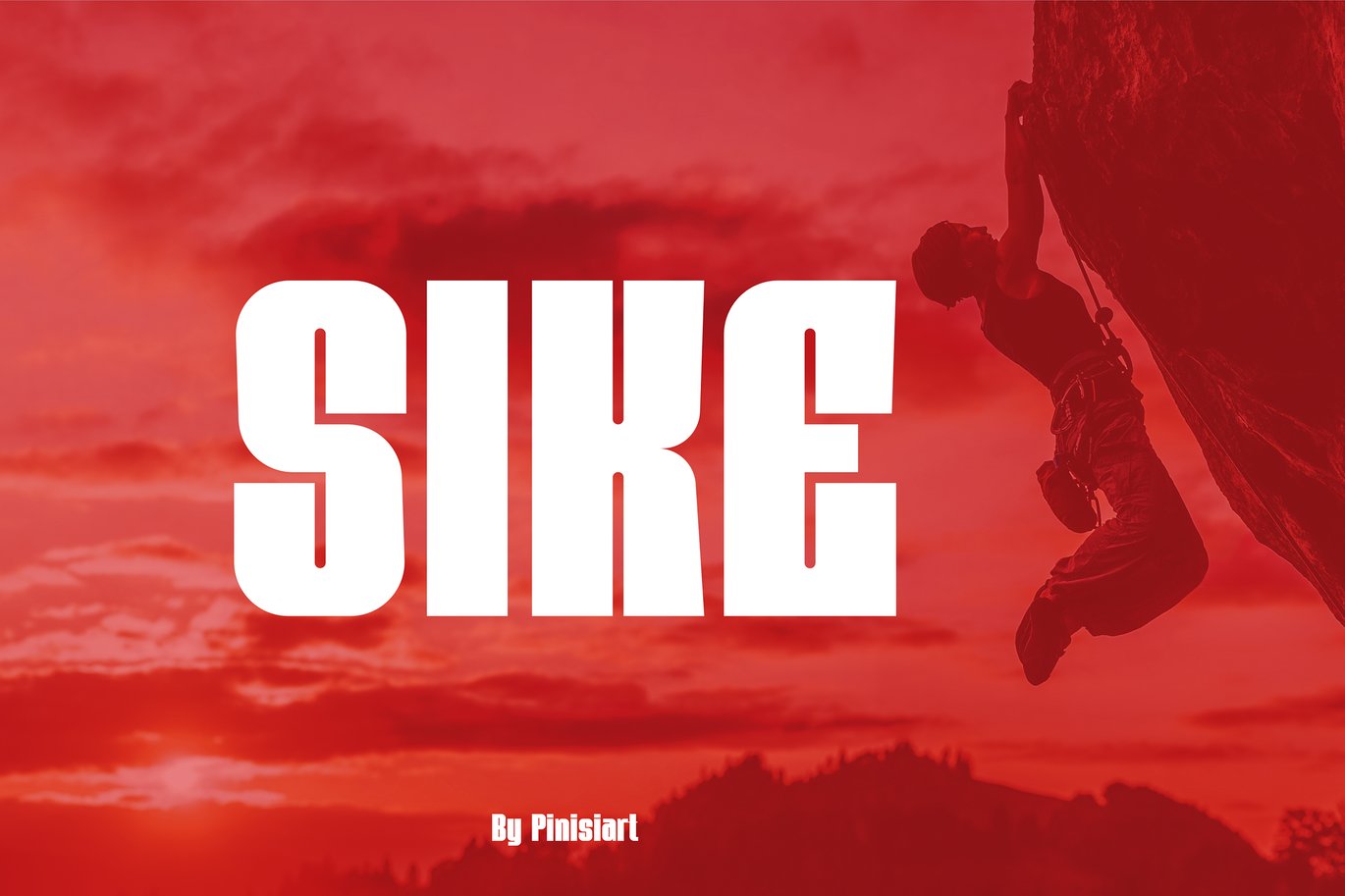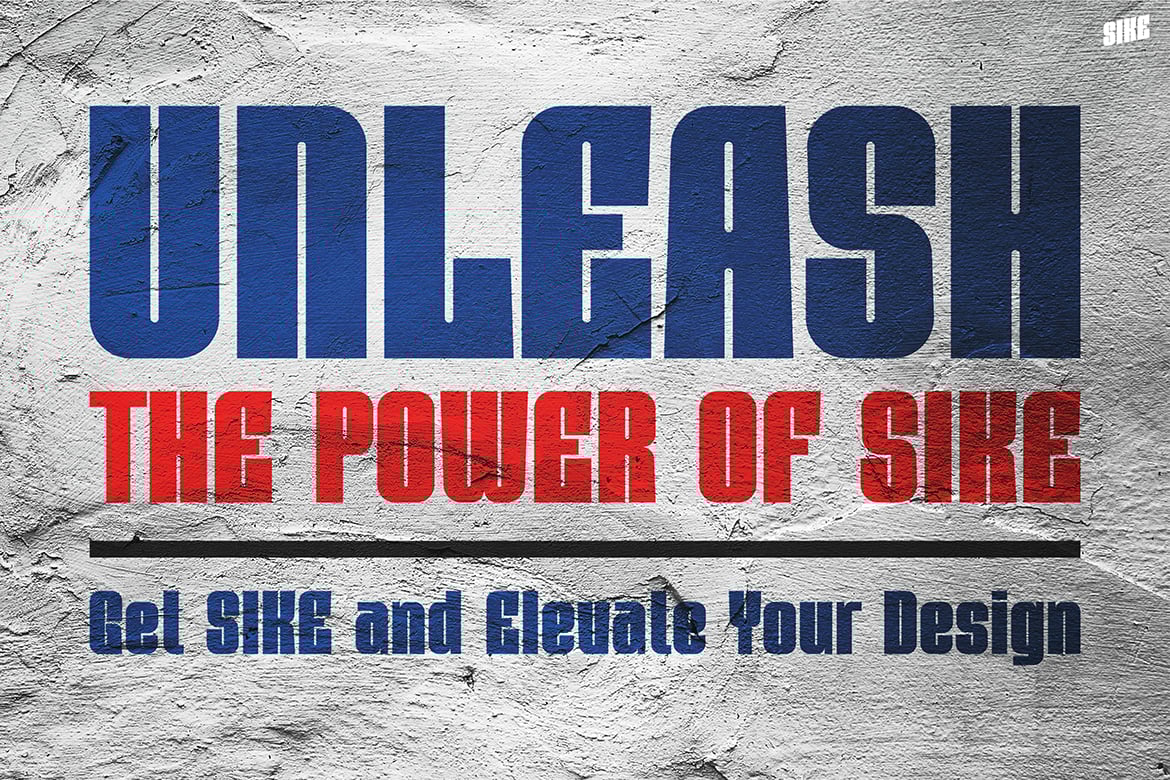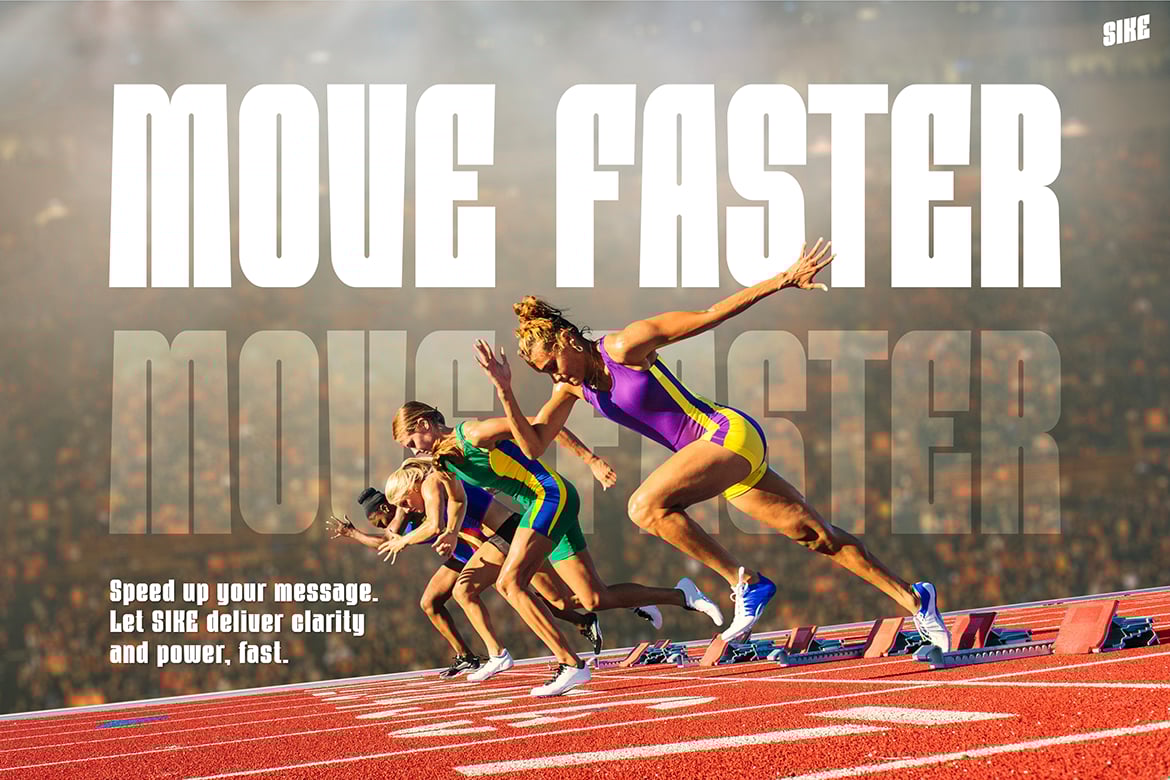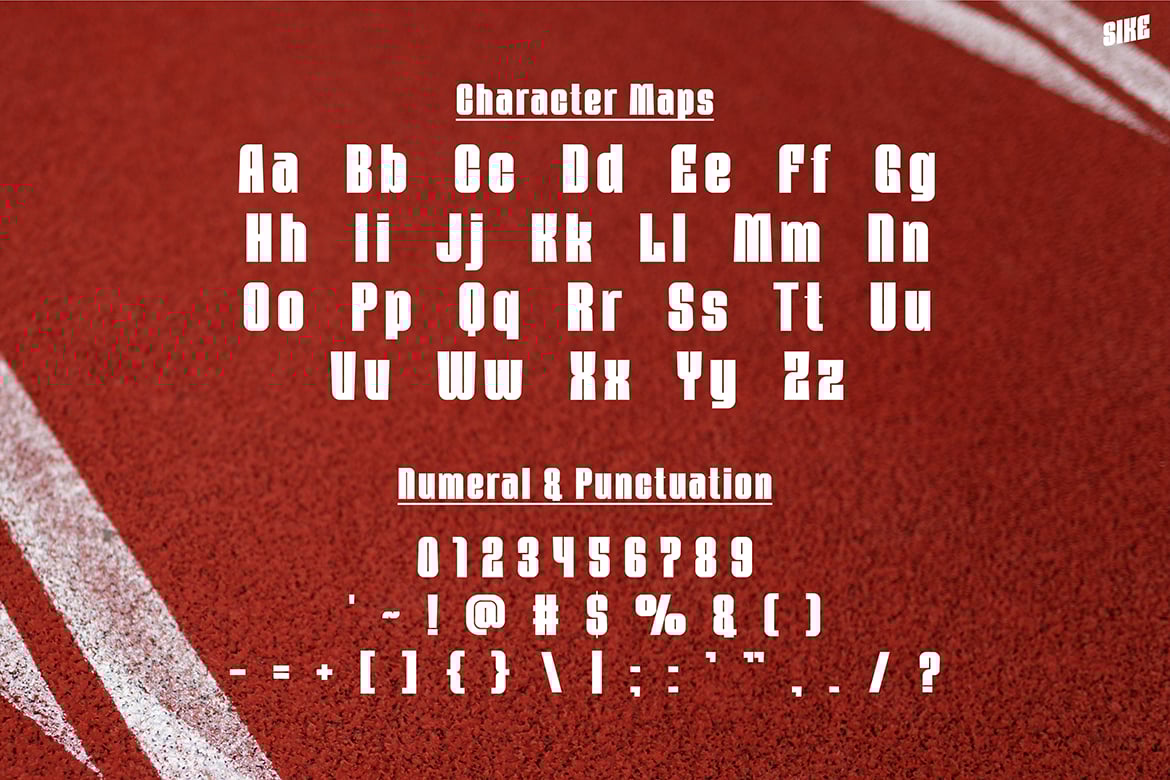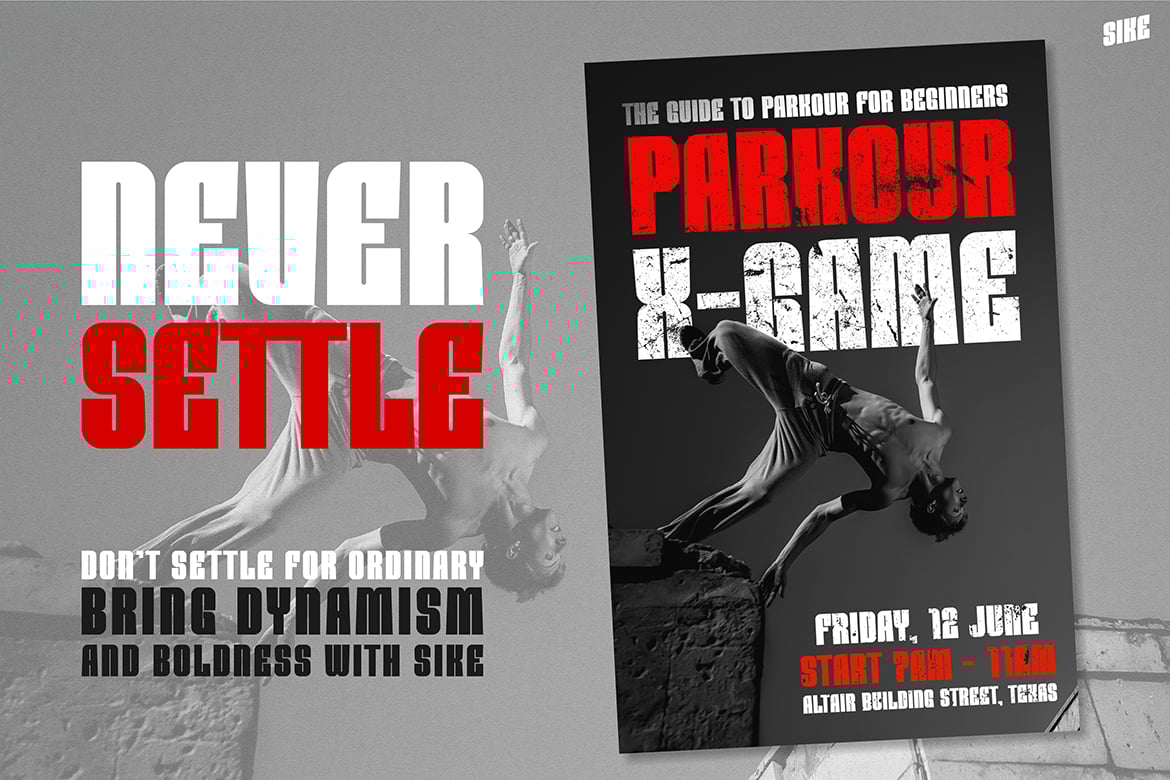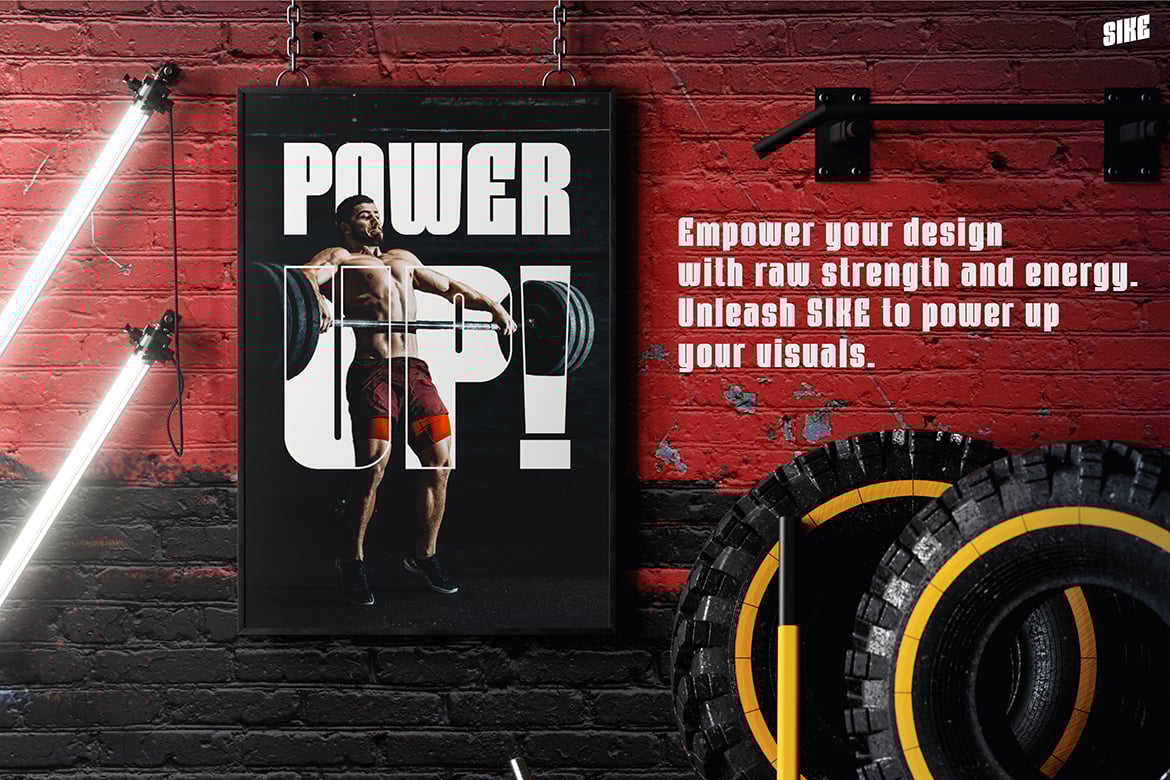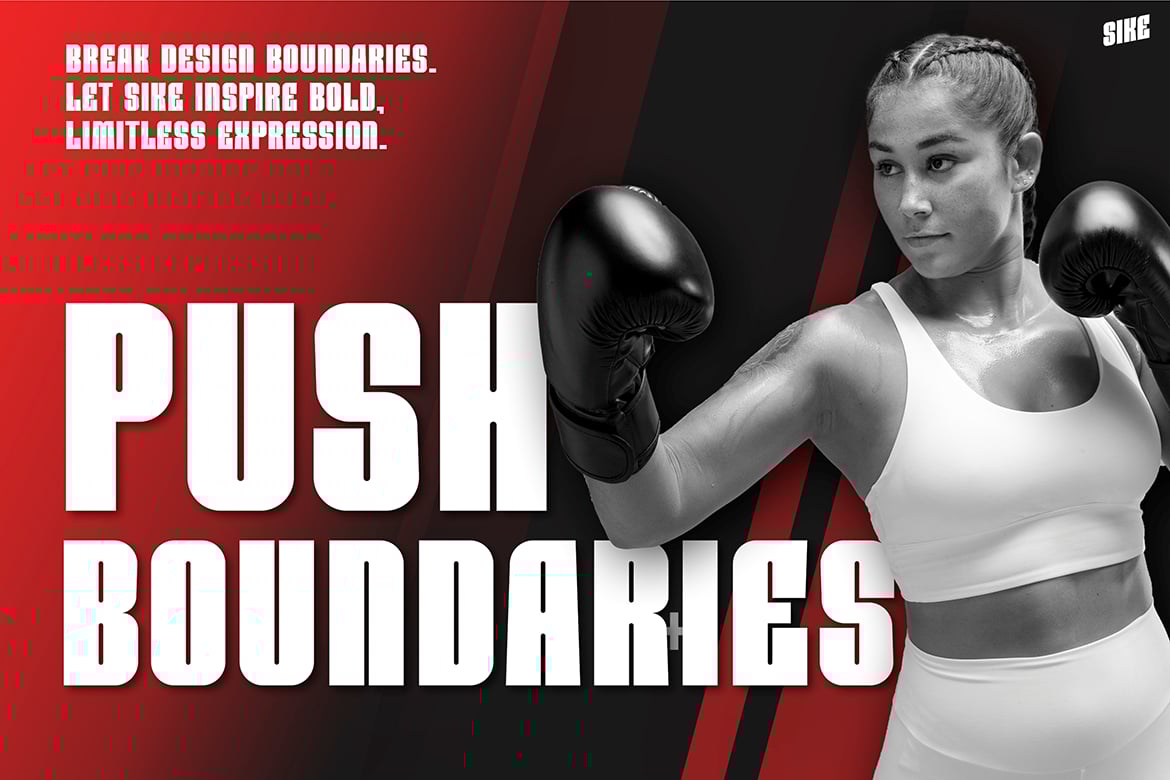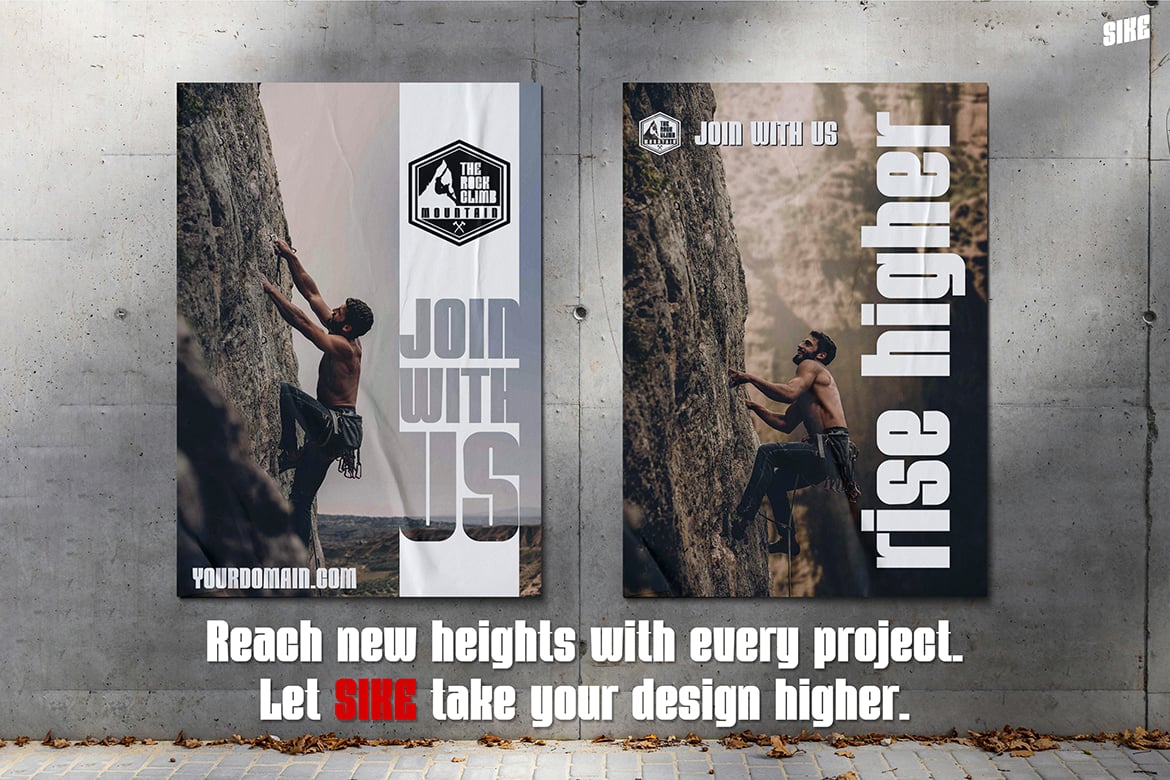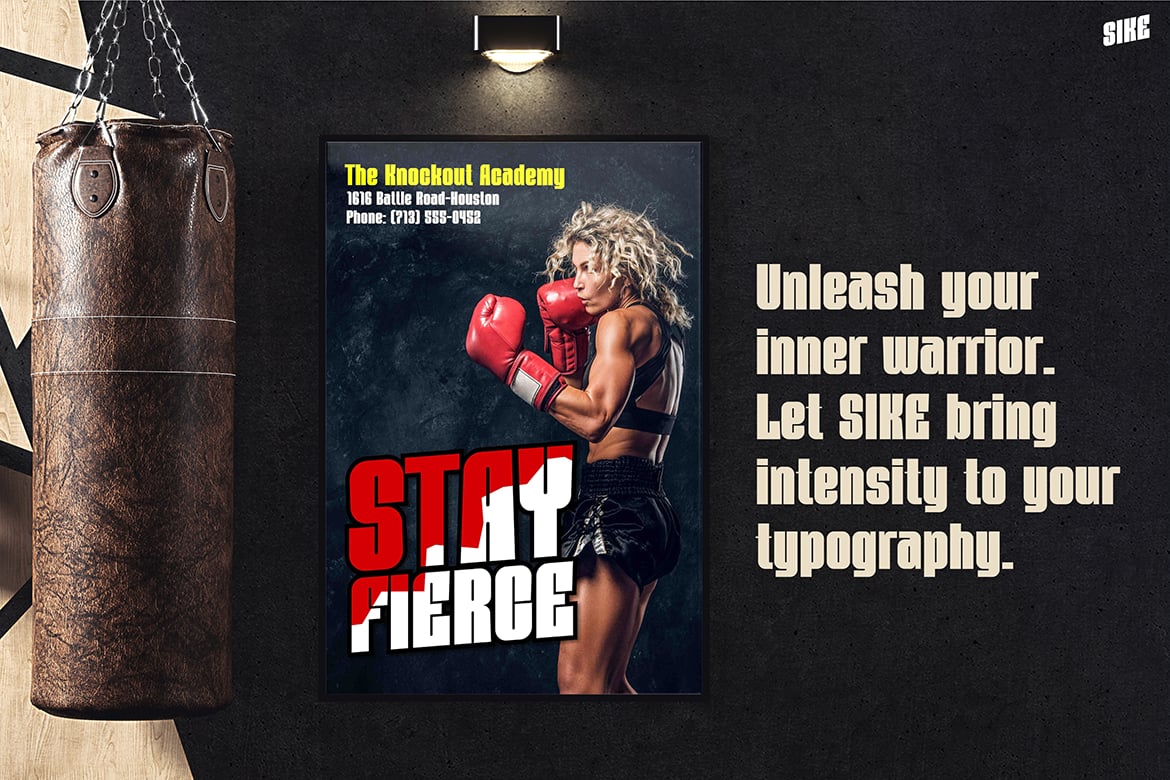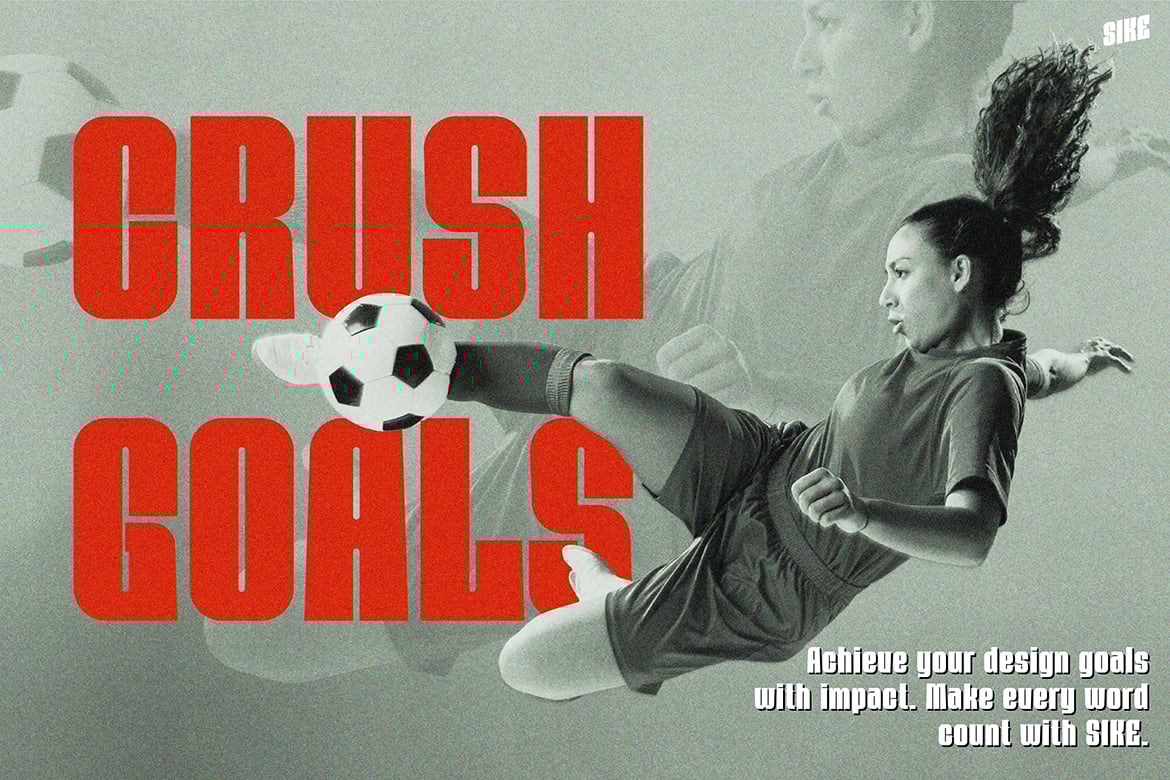
Sport Font – Sike
SIKE is a bold, high-impact display font designed to bring strength and clarity to your designs. With its commanding letterforms, SIKE conveys speed, power, and confidence, making it ideal for projects focused on action and motivation. Its modern, straightforward style makes it a perfect choice for athletic, fitness, and adrenaline-driven visuals that need a forceful touch.
Market Applications
Sports & Fitness Branding: SIKE is ideal for sports brands, gym logos, and athletic merchandise. Its bold style adds a sense of intensity and power, aligning well with branding that emphasizes strength and endurance.
Event Promotion Perfect for event posters, banners, and advertisements for athletic competitions, races, and strength challenges. SIKE’s powerful typeface grabs attention and conveys a sense of energy and determination.
Digital Media & Social Content Use SIKE in social media graphics and digital campaigns for fitness programs, workout challenges, or motivational posts. Its impactful letterforms create a striking visual for audiences focused on performance and fitness goals.
Activewear & Apparel This font works well on workout gear, sports apparel, and accessories. Its bold look adds a dynamic and competitive edge to clothing designs, making it ideal for brands targeting athletes and fitness enthusiasts.
Gym & Training Facilities SIKE’s strong style is perfect for gym signage, motivational posters, and equipment branding. Its high-energy design can reinforce a gym’s identity and inspire clients to push their limits.